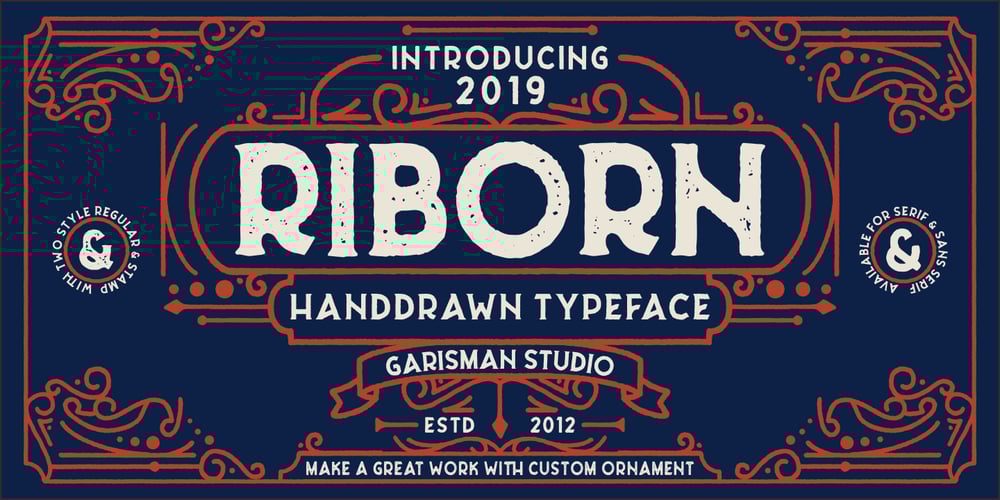
Riborn Font Family was designed by Risman Ginarwan and published by Garisman Studio. Riborn contains 5 styles and family package options. Rebirth begins with light streaks that form a vintage style with a touch of rough and stamp. Riborn with 4 fonts in number, as “ribs” in your design work, and able to beautify also strengthen your work in the form of type logos, typography, hand-lettering, packaging, t-shirts, labels, and much more. This family also equipped with an extras weight, which includes beautiful ornaments in a classic and minimalist impression.